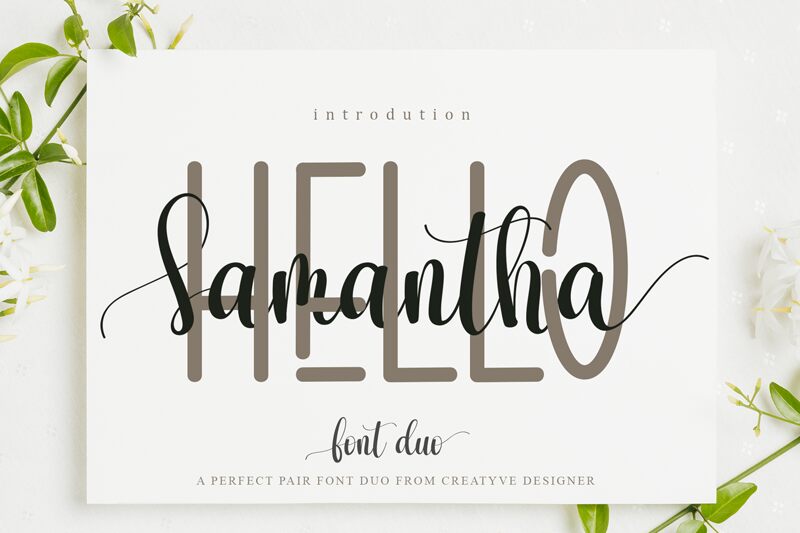
Hello Samantha font by creatype designer is a free script font flowing with simplicity and elegance. Its casual strokes marks the letterforms a classic calligraphy that portrays vulnerability and meekness. These qualities are further heightened by the inconsistencies in the sizes, tones, and curves of the glyphs. The font has both lowercase and uppercase letters, punctuations, and special characters.
Use Samantha to touch audiences of an art brand with a classic logo that maintains improved legibility. The font also fits perfectly in brands of fashion, cosmetics, and any field that wants to appeal more to their audiences through the power of typography.
This font combines a classy calligraphic influence with a contemporary and fresh feel. Its versatility appeals to a broad spectrum of creative projects, making it suitable for letterheads, titles, and stationery.